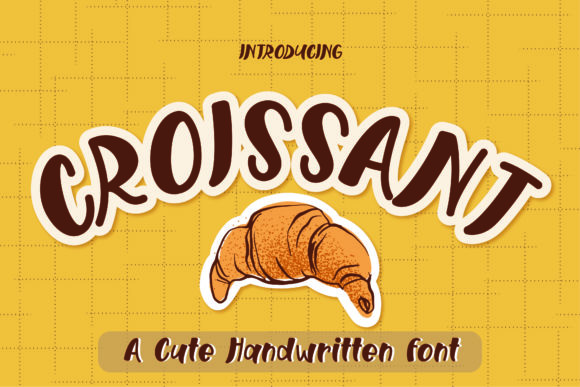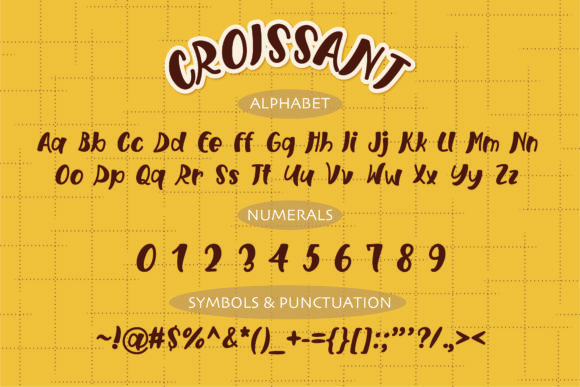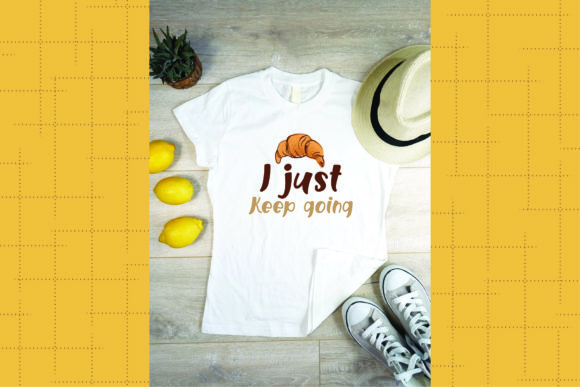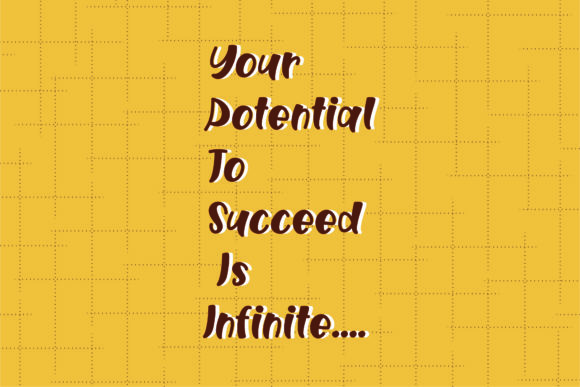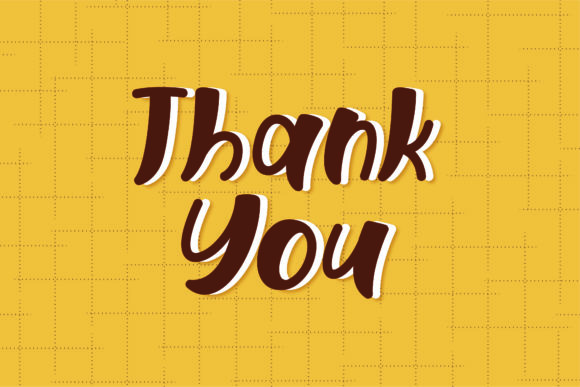
Croissant Font
About Croissant Font
Croissant is a cute and fun handwritten font. Its natural and unique style makes it incredibly fitting to a large pool of designs. The only limit is your imagination! It looks stunning on wedding invitations, thank you cards, quotes, greeting cards, or more!